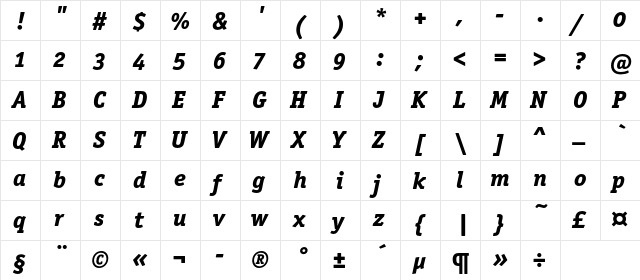
Design Context for OfficinaSerifExtraBoldOSC Typeface
OfficinaSerifExtraBoldOSC brings classic typographic sensibility to the table — its serifs and measured letterforms reflect centuries of print heritage. The slanted form adds forward momentum and visual energy. The heavy weight commands attention and anchors typographic hierarchies.
Pro Tip: Use OfficinaSerifExtraBoldOSC for editorial body copy and considered headline work. Pair with a neutral sans for UI elements or captions to create a classic hierarchy.